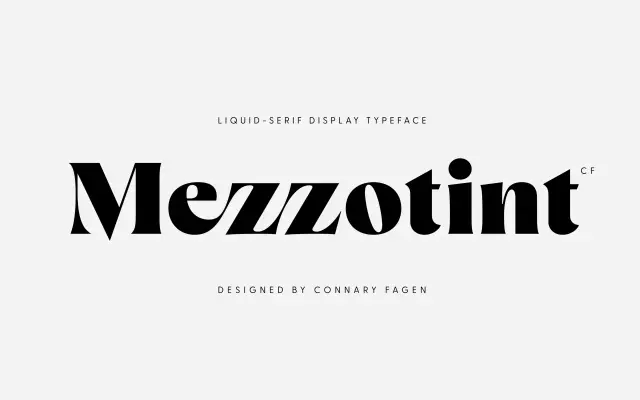
Mezzotint CF
A single-weight bold display serif with high-contrast strokes, flared serifs and inky terminals, aimed at logotypes, posters and editorial headings.
Available in Regular and Regular Italic, the family relies on contrast and character rather than a weight range to create impact. Aqueous stroke connections and a generous set of OpenType alternates, swashes and discretionary ligatures give designers room to customise letterforms for logotype work. Language support covers Latin Extended and Vietnamese, spanning over two dozen languages from Catalan to Turkish.
A bold display serif with high-contrast strokes, flared serifs and inky terminals; intended for logotypes, posters and editorial use rather than extended text setting.